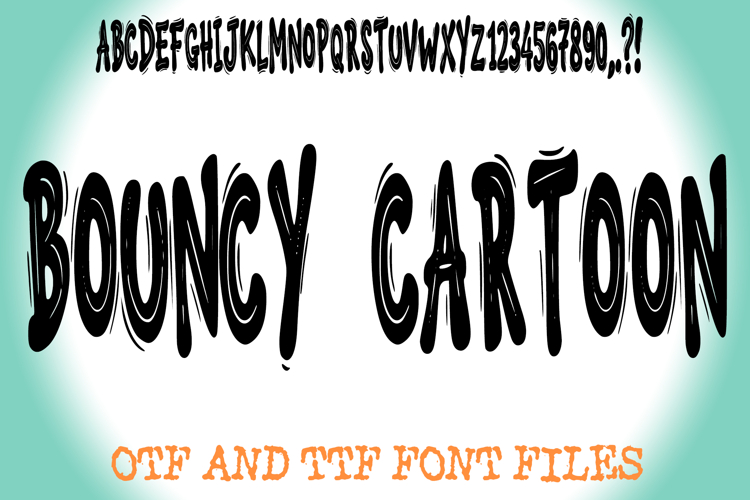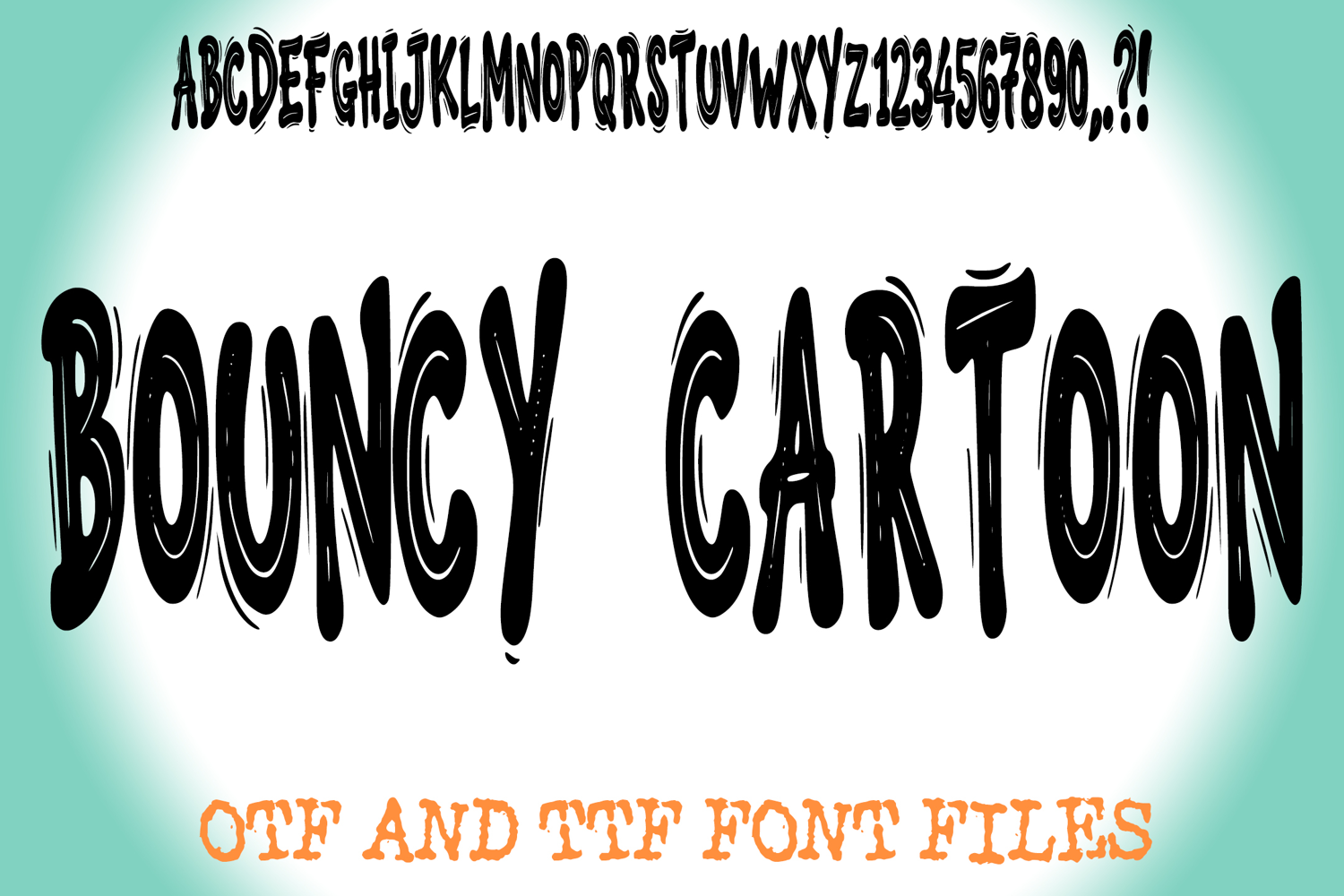
Bouncy Cartoon Crazy Alphabet Lettering ABC Text Font OTF
Inject a burst of pure joy and playful energy into your designs with Bouncy Cartoon font, the irresistibly cheerful font that literally bobs with personality! This isn't just a typeface; it's a smile in every letter, perfect for projects that need to feel light-hearted, friendly, and full of fun.
Each character in Bouncy Cartoon features a delightful wobble and an expressive, hand-drawn feel, making it an ideal choice for children's books, comic strips, animated titles, vibrant branding, or any design calling for a touch of whimsical charm. Its uneven baselines and slightly distorted shapes give it an authentic, hand-lettered appeal that jumps right off the page (or screen!).
Why Bouncy Cartoon Will Make Your Designs Pop:
Irresistibly Playful: Instantly convey happiness, excitement, and a friendly vibe.
Versatile for Fun Themes: Perfect for children's products, toy packaging, game design, YouTube thumbnails, social media graphics, party invitations, and more!
Hand-Drawn Charm: Its organic, slightly imperfect strokes give it a unique, artisanal quality.
High-Impact Display: Great for headlines, logos, short phrases, and anywhere you want to make a big, happy impression.
If you're looking to create designs that are memorable, approachable, and packed with character, "Bouncy Cartoon" is your go-to font. Let your creativity bounce and bring a smile to everyone's face!